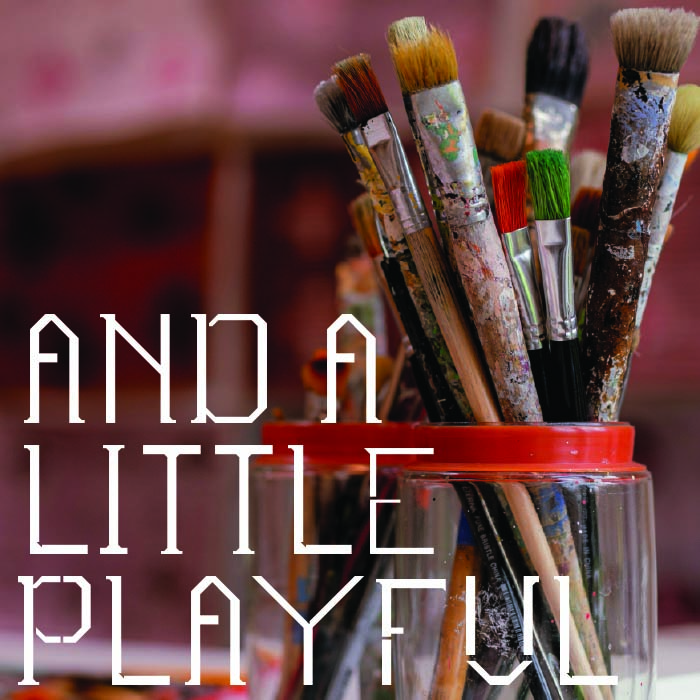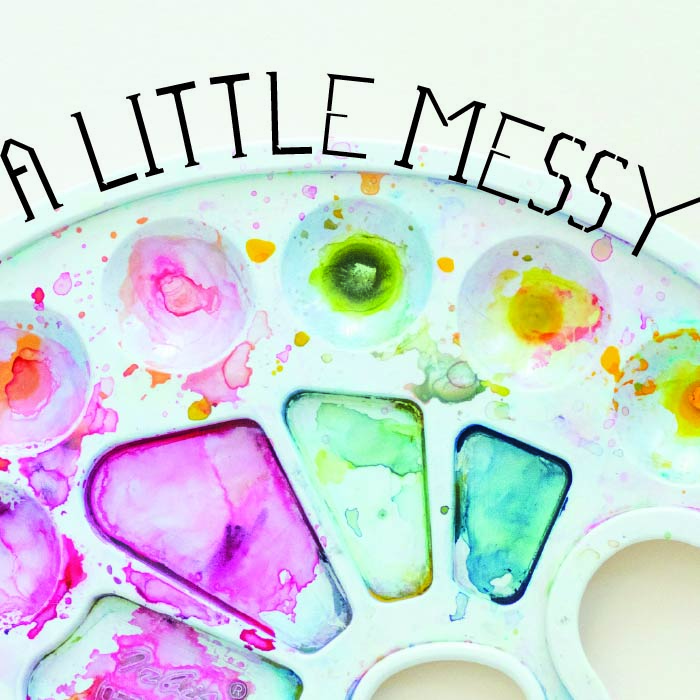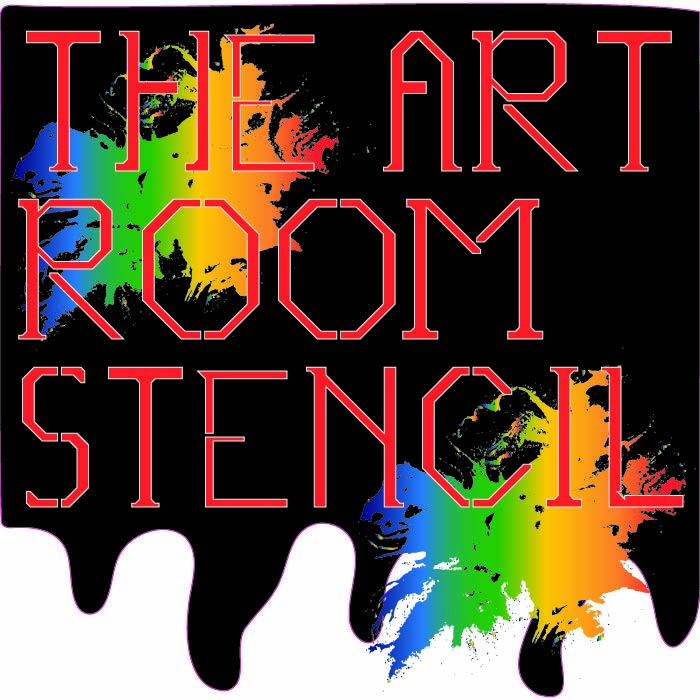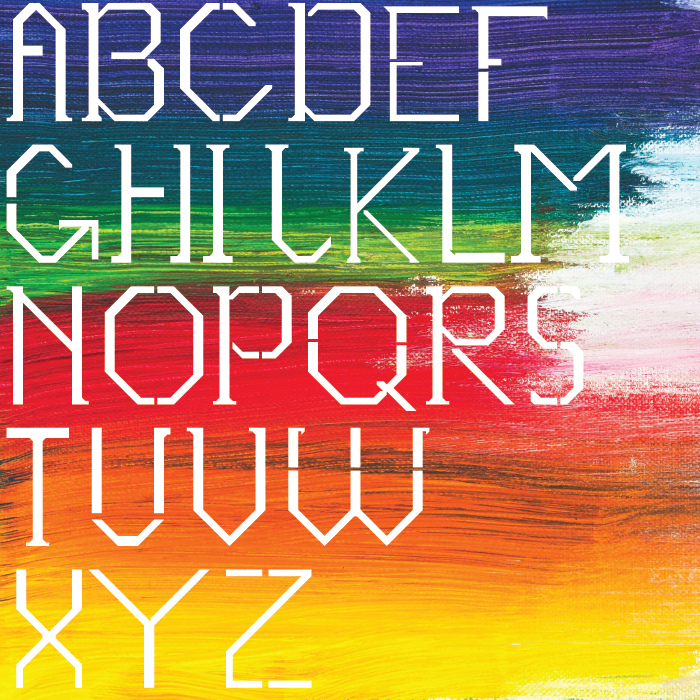
• A futuristic and geometric style with a technical and industrial feeling font. The sharp angles and precise line work give it a structured, high-tech appearance, making it perfect for designs that need a modern, sci-fi, or cyberpunk aesthetic. Monospaced, stencil-like construction, it works well for  or anything requiring a digital or mechanical look.